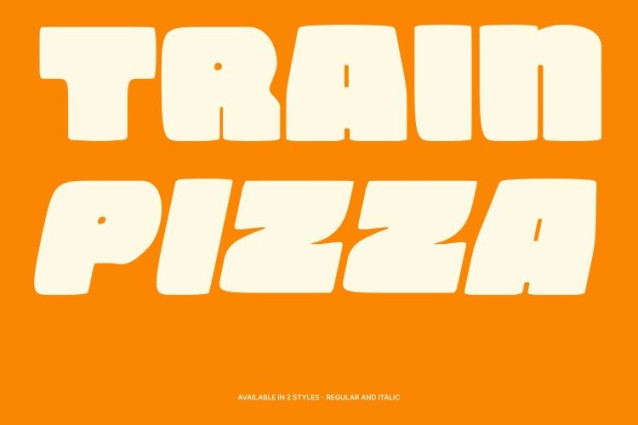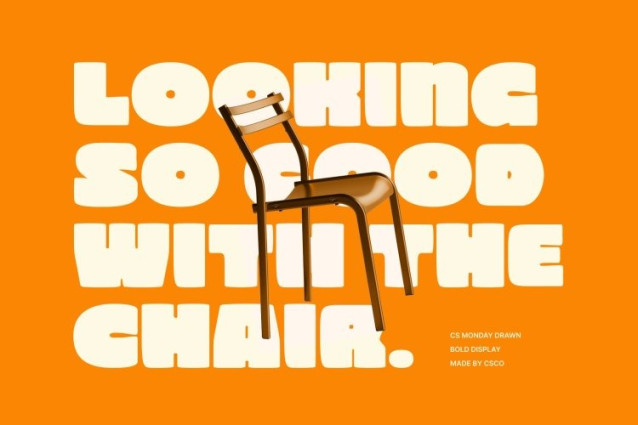
CS Monday Drawn Font This is a modern sans-serif display font defined by bold weight, clean shapes, and a contemporary structure. Its solid letterforms deliver clarity and strength, while the subtle hand-drawn texture adds expressive character, giving the font a lively and approachable feel.
Funky Flair with Professional Balance
At its core, this font is bold and confident, but a touch of funky energy sets it apart. The drawn details introduce charm and originality without overpowering the clean structure. This balance between professionalism and playfulness makes the font versatile, distinctive, and visually engaging.
Versatile for Creative and Modern Applications
This font works seamlessly across logos, posters, branding, packaging, and digital designs. Whether used for strong headlines or impactful display text, it maintains excellent readability while projecting a modern, expressive tone.
Confident Impact with Lasting Presence
Combining strength, modernity, and creative flair, this font is ideal for designers seeking bold typography with personality. Its confident form and subtle funky vibe ensure every project stands out, feels memorable, and leaves a lasting impression.